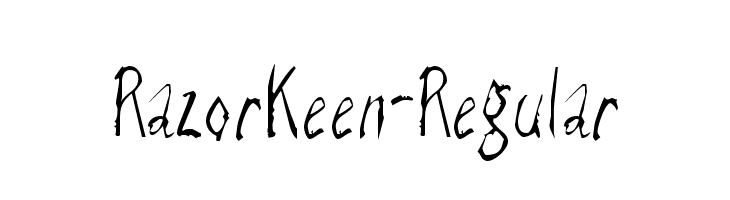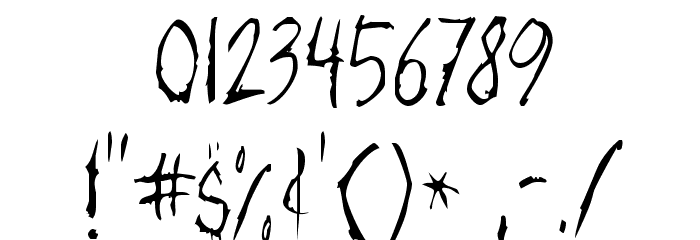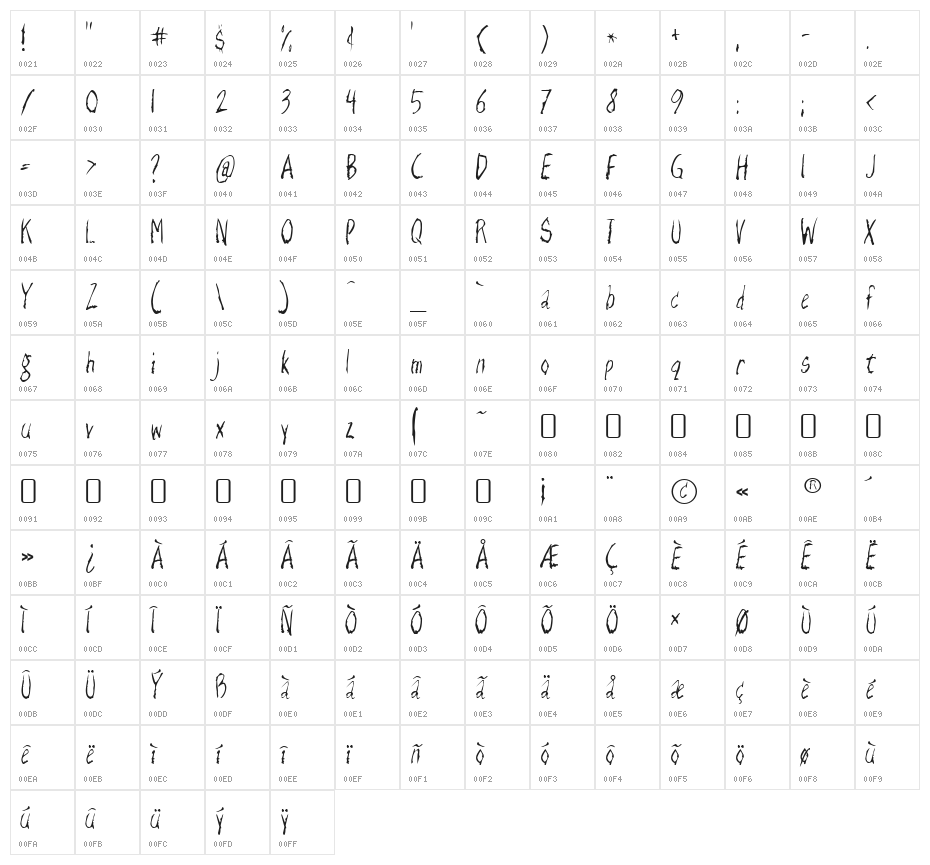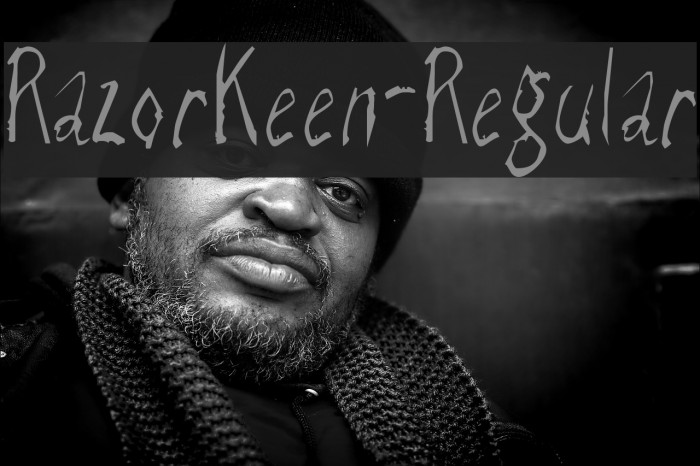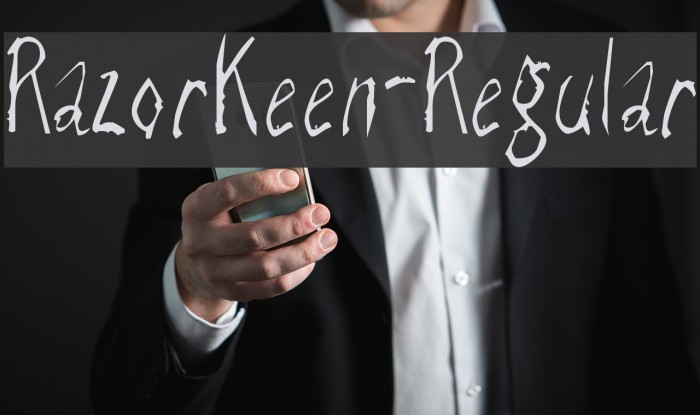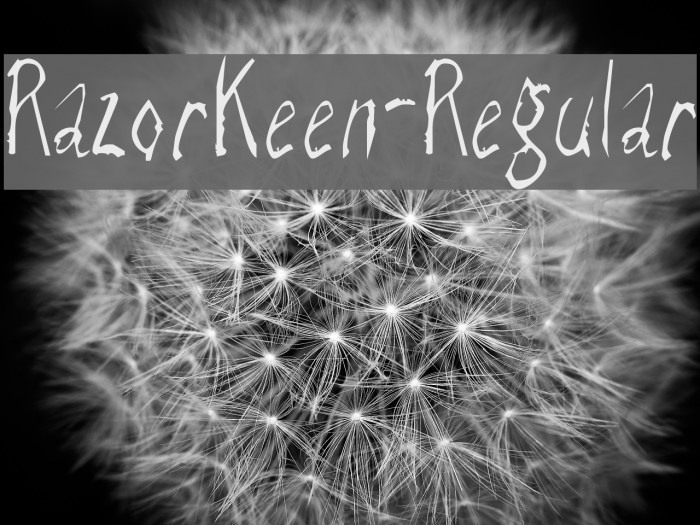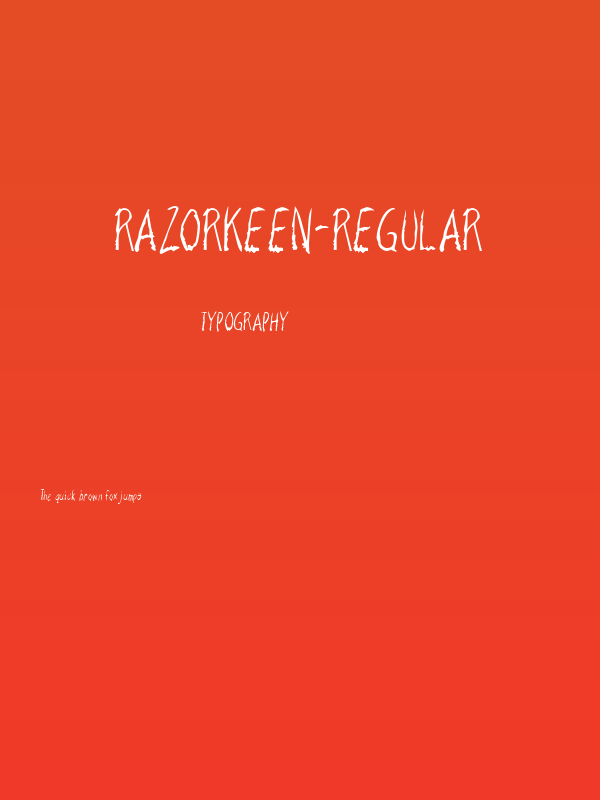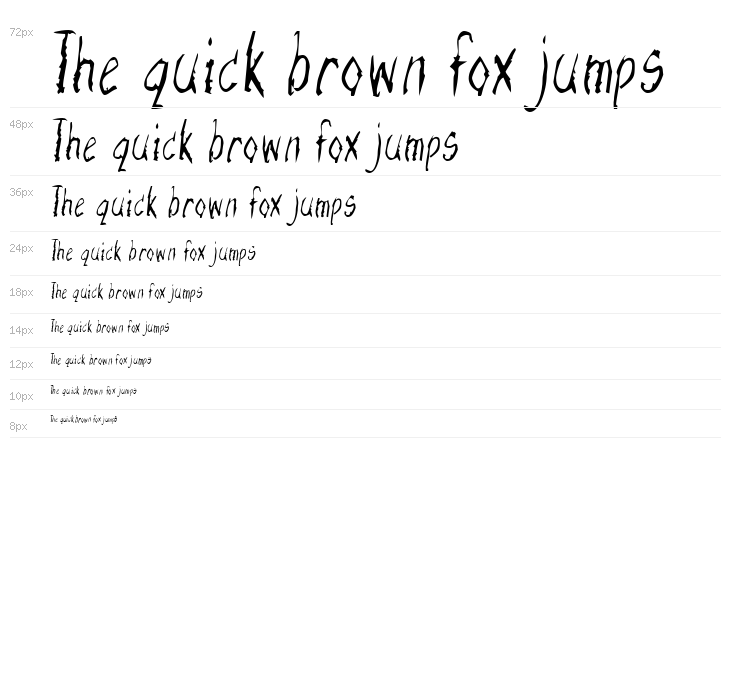
RazorKeen-Regular Font
RazorKeen-Regular Description
This font features a rugged, edgy style with irregular, jagged edges that give it a hand-drawn appearance. The uppercase and lowercase letters maintain a consistent height, while the strokes vary in thickness, adding a dynamic and energetic feel. The numerals and special characters follow the same aesthetic, ensuring a cohesive look across all glyphs. The overall design is reminiscent of a distressed or grunge style, making it suitable for projects that require a bold and unconventional typeface.
| Use Case | Logos, Posters, Headlines |
| Proposed Projects | Ideal for album covers, posters, horror-themed designs, and edgy branding. |